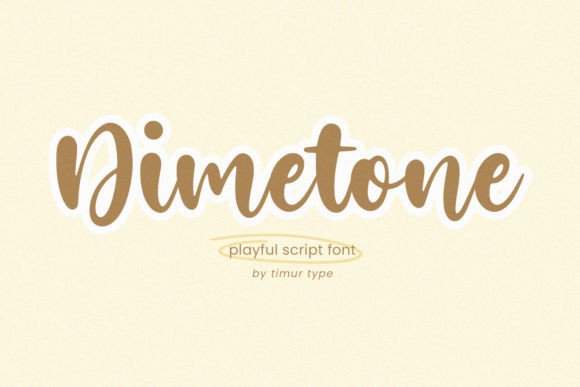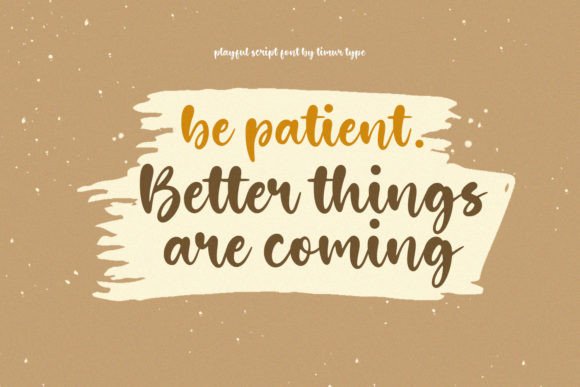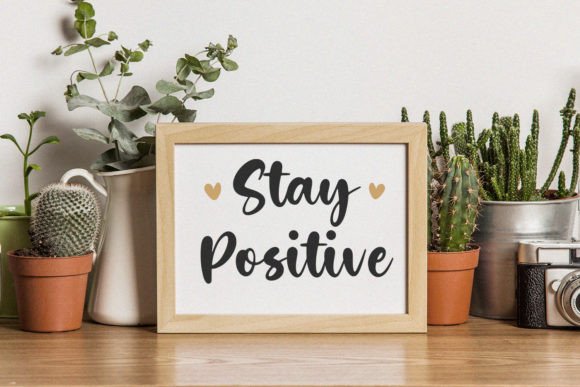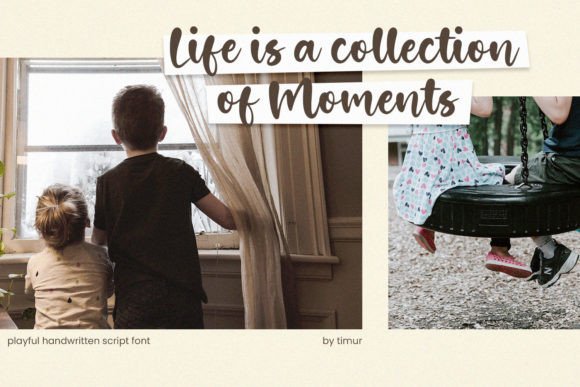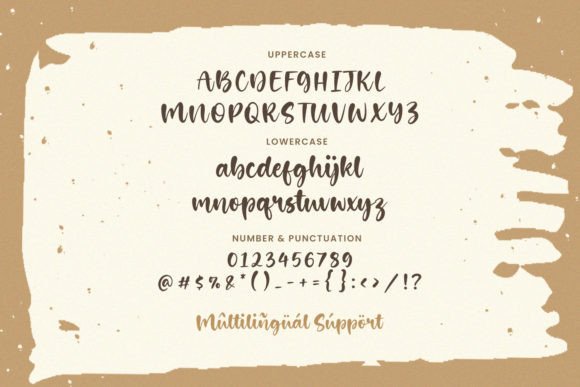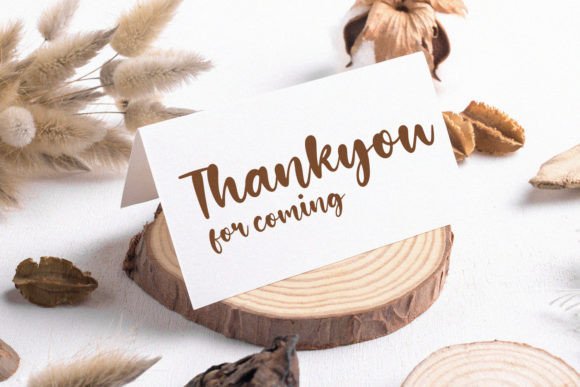
The Dimetone Font Download is an elegant handwritten script created with care to bring beauty and charm to any project. Its smooth curves and stylish handwritten rhythm make it a versatile font for personal and professional designs. Whether you are creating branding materials, wedding invitations, or digital graphics, Dimetone adds elegance and clarity.
A Stylish Script with Modern Balance
The Dimetone script font combines natural handwritten strokes with balanced proportions. As a result, it feels both graceful and timeless. Furthermore, it adapts seamlessly to packaging, stationery, and creative displays, which makes it useful for many design needs.
Handwritten fonts always make personal projects more meaningful. The Dimetone Font is perfect for wedding invitations, thank you notes, birthday cards, and seasonal greetings. Because of its smooth handwritten details, every message feels polished and heartfelt. In addition, it brings warmth and personality to each piece.
Branding and Logo Design with Dimetone Font
Typography is a strong element in brand identity. The Dimetone handwritten font is ideal for boutique logos, product packaging, and marketing campaigns. Its elegant strokes create a professional yet welcoming impression. Therefore, it works especially well for creative, lifestyle, and fashion brands.
Posters, Magazines, and Editorial Layouts
The Dimetone Font Download is also perfect for posters, magazines, banners, and book covers. It stays clear in every size, while its handwritten charm enhances layouts with elegance. Consequently, it is a reliable font for both small stationery and large editorial designs.
In today’s digital world, fonts must be flexible and eye-catching. The Dimetone typeface integrates smoothly into Instagram posts, Pinterest graphics, YouTube thumbnails, and blogs. Because of its timeless handwritten rhythm, it ensures digital projects look stylish and engaging.
Why Designers Choose Dimetone Typeface
Designers love fonts that balance beauty and readability. The Dimetone handwritten script keeps its graceful personality while staying legible. This makes it a dependable option for professionals and hobbyists alike. Moreover, its elegant handwritten look ensures it stays trendy in future projects.